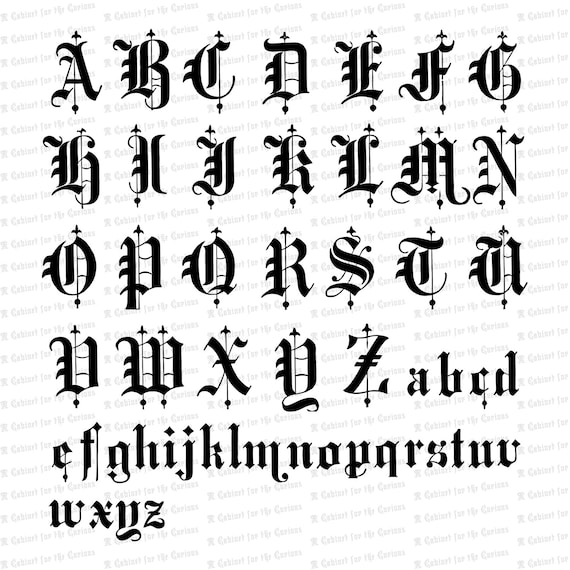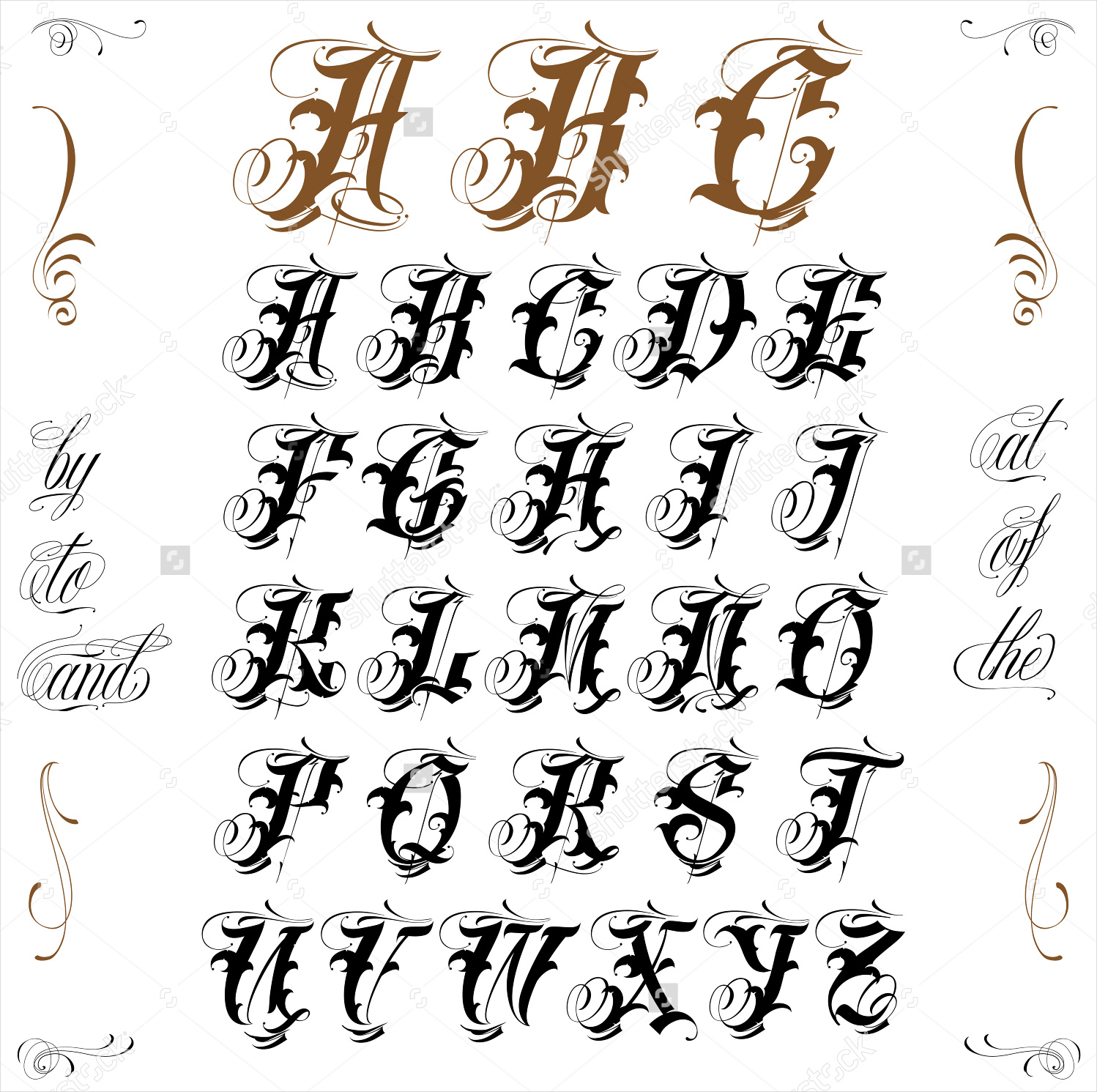
The Old English also known as blackletter dates back to 1000 years ago when it was used as a script throughout Western Europe. Schwabacher an old English.
The writing is readable but is usually extravagant and embellished with flourishes.
Calligraphy victorian old english font. Calligraphy is an artistic writing style where the pressure is varied to create thick and thin lines all in a single stroke. Victorian Old English Font. 5 out of 5 stars.
About Old English Fonts. Installable font created from a vintage 1884 ornamental Old English Fancy Text alphabet sourced from an antique penmanship guide. Victorian Old English Fancy Text Ornamental Installable Font Vintage Ornamental Uppercase Lowercase Letters Calligraphy OTF TTF.
Victorian Fonts Victorian fonts have designs that reflect the Victorian period of art in Britain in the early 1900s. It is also known as Blackletter or medieval calligraphy. Victorian Old English Fancy Text Ornamental Installable Font Vintage Ornamental Uppercase Lowercase Letters Calligraphy OTF TTF.
It usually involves a nibbed pen or brush. See more ideas about alphabet lettering alphabet lettering. Victorian letters are elaborate and have ornate borders.